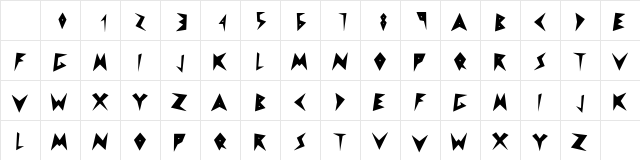
Complete Vivaracho Bold glyph index. Displaying only characters natively supported by Vivaracho Bold font.
Vivaracho is a composed and adaptable typeface that performs quietly and consistently across a wide range of design contexts. Its bold stroke weight gives it real presence on the page.